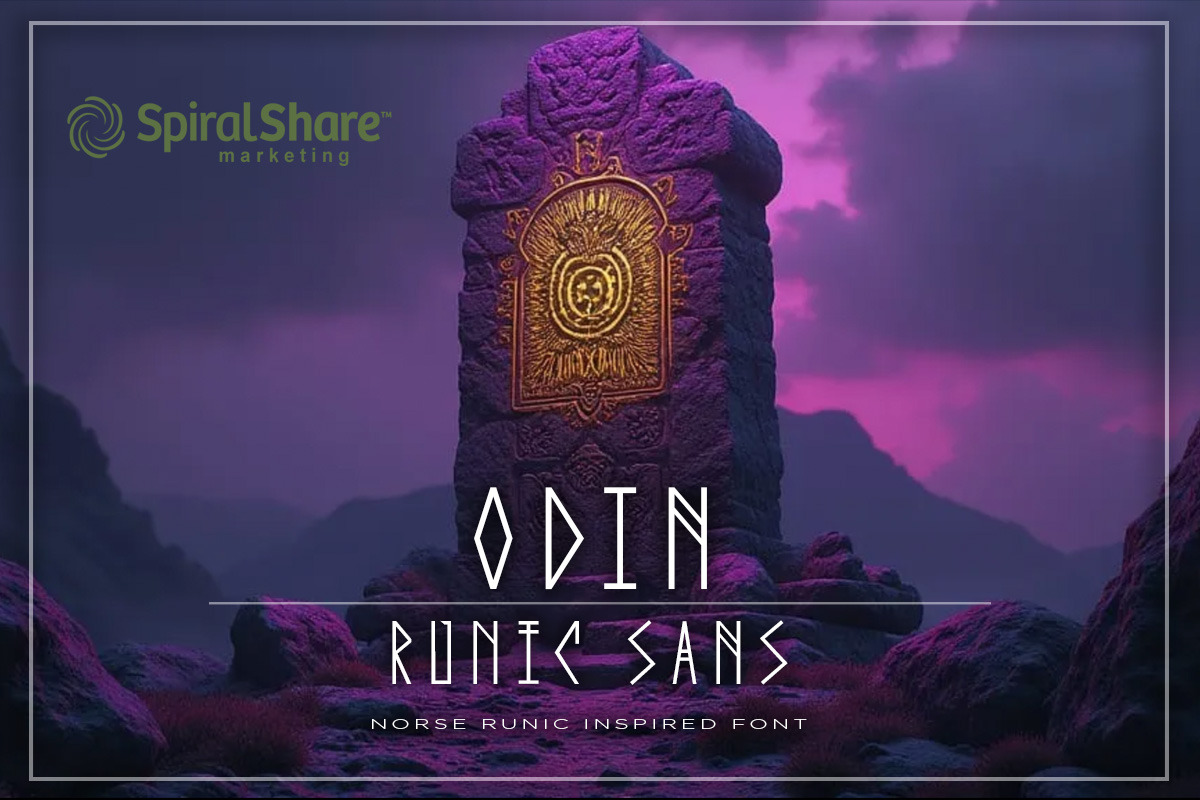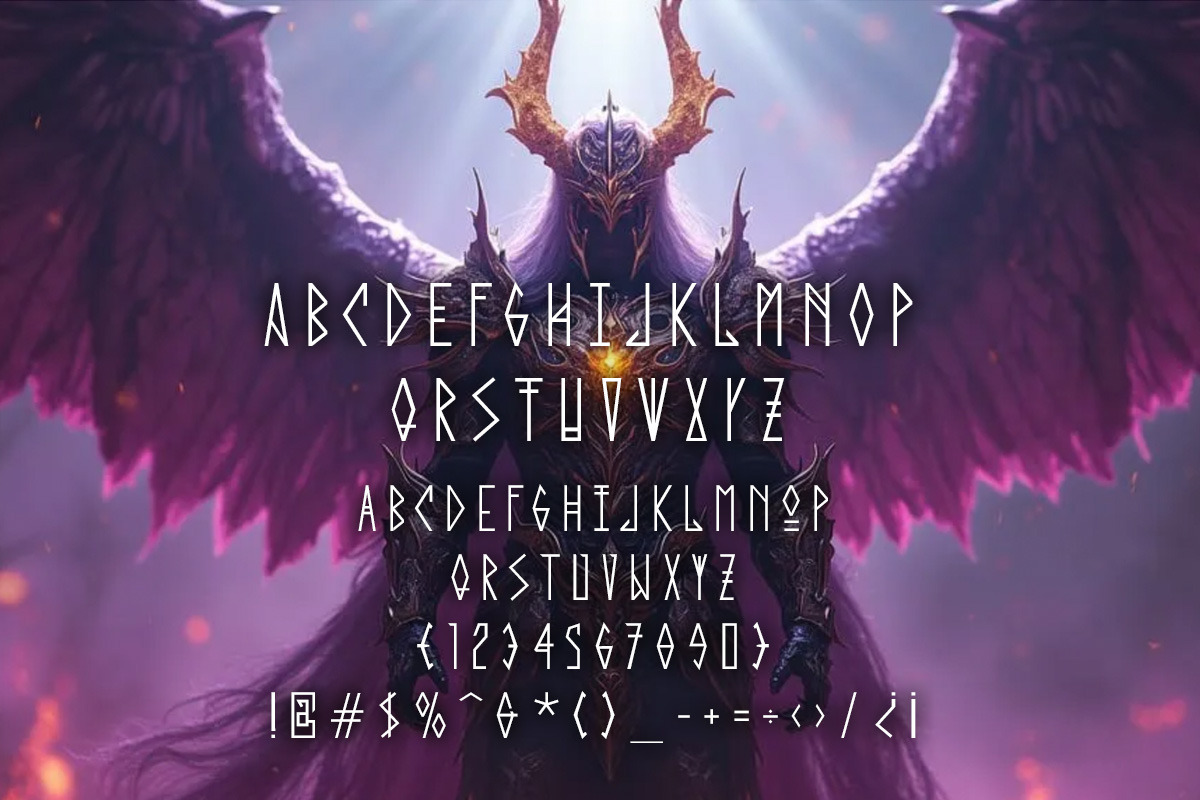
Odin Runic Sans Norse Typeface
Odin Runic Sans is a bold, Norse-inspired runic font that blends ancient symbolism with modern design for a striking, mystical look - for posters, games, & more.